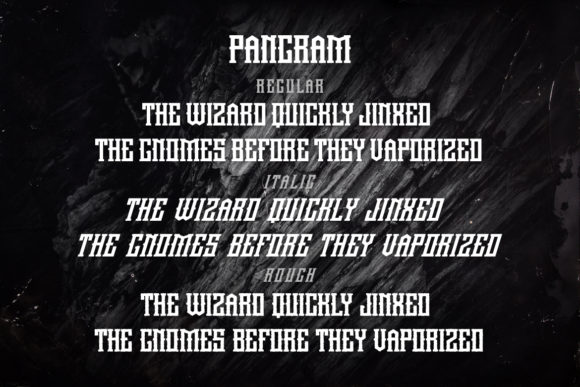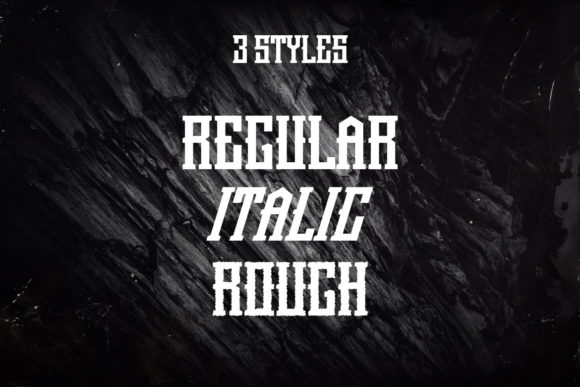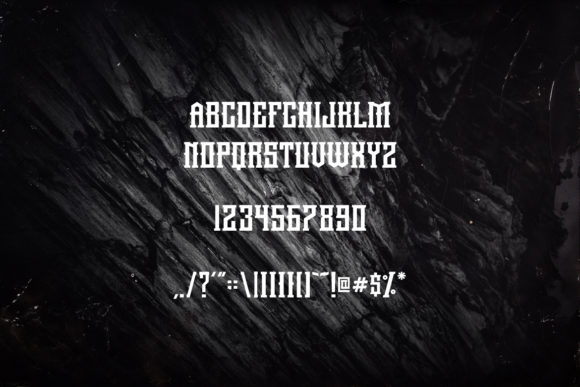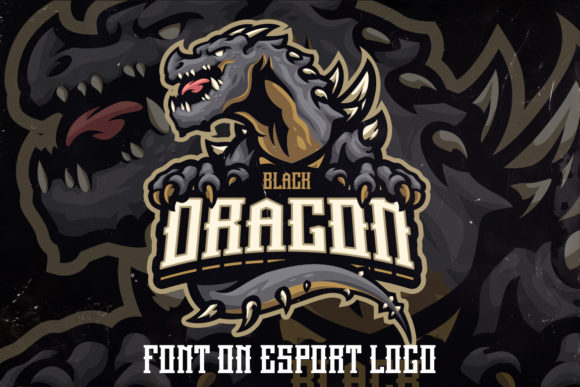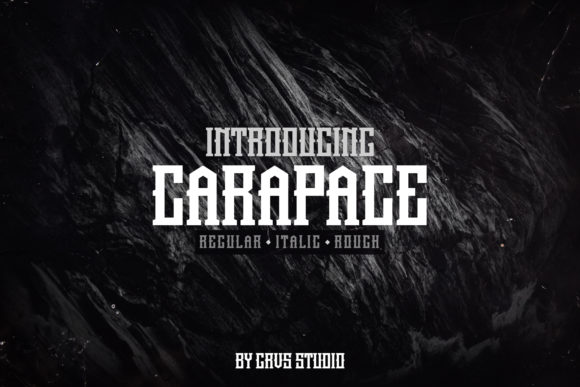
The Power of Carapace Font: Elevate Your Designs with Confidence
An Honest Review of Carapace Font
What I Love About Carapace ✨
- ✅ Distinct and clean texture: Carapace boasts a one-of-a-kind texture that adds depth and visual interest to any design.
- ✅ Imposing and bold: This font makes a statement, perfect for titles, headings, and emphasis.
- ✅ Versatile: Carapace works well with a variety of design styles, from modern and sleek to rustic and vintage.
- ⚠️ Limited use in body text: Due to its bold and textured nature, Carapace might not be the best choice for lengthy body text.
- ⚠️ Requires careful pairing: Carapace can be overpowering, so it’s essential to choose complementary fonts that balance its boldness.
- Experiment with OpenType features, such as stylistic alternates and glyphs, to add visual interest.
The Story Behind Carapace Font
Carapace Font was designed with the intention of creating a bold and eye-catching display font. The designer aimed to craft a font that would make a statement and add a touch of personality to any design. With its unique texture and imposing presence, Carapace has become a go-to font for designers looking to elevate their work.
| Font Name | Carapace Font |
| What makes Carapace Font unique? | Carapace boasts a distinct and clean texture, making it stand out from other display fonts. |
| Can I use Carapace for body text? | While possible, Carapace is better suited for titles, headings, and emphasis due to its bold nature. |
| Is Carapace suitable for digital and print designs? | Yes, Carapace works well in both digital and print designs, making it a versatile font choice. |